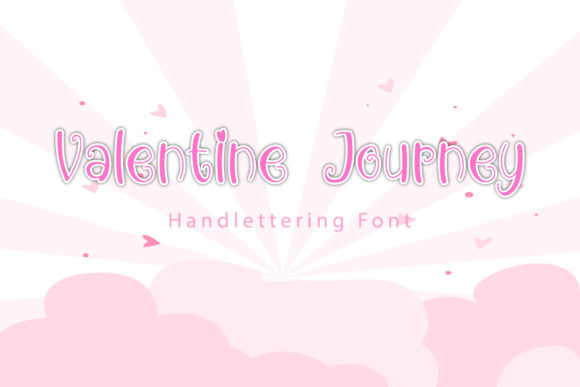
About Valentine Journey Font
Valentine Journey is a sweet and friendly handwritten font that adds a touch of charm and warmth to your designs. With its natural and unique style, this font is incredibly versatile and can be used in a wide range of projects, allowing your creativity to soar without limitations.
The casual and approachable nature of Valentine Journey makes it suitable for various design applications. Whether you’re creating Valentine’s Day cards, wedding invitations, thank-you notes, or even social media graphics, this font adds a delightful and personal touch. Its handwritten appearance creates a sense of authenticity and intimacy, making it perfect for designs that require a heartfelt and genuine feel.
The versatility of Valentine Journey allows it to adapt to different design themes and moods. Whether you’re aiming for a romantic and whimsical look or a more playful and fun atmosphere, this font can be customized to suit your desired style. Experiment with different sizes, colors, and embellishments to enhance the visual impact and bring your ideas to life.
One of the greatest strengths of Valentine Journey is its ability to evoke emotions and create a connection with the audience. The organic flow of the letters and the slight variations in strokes add a sense of warmth and personality to your text. This makes it ideal for projects that require a personal touch, such as handwritten quotes, love letters, or personalized gifts.
Additionally, Valentine Journey can be easily combined with other fonts to create interesting and dynamic typography compositions. Pair it with a bold sans-serif font for a modern contrast, or with a decorative script font for an elegant and sophisticated look. The possibilities are endless, and the only limit is your imagination.
In summary, Valentine Journey is a sweet and friendly handwritten font that brings a touch of charm and authenticity to your designs. Its versatility and natural style make it suitable for a wide range of projects, allowing you to explore and create without boundaries. So unleash your creativity and let Valentine Journey be the companion on your design journey, bringing joy and warmth to every piece you create.